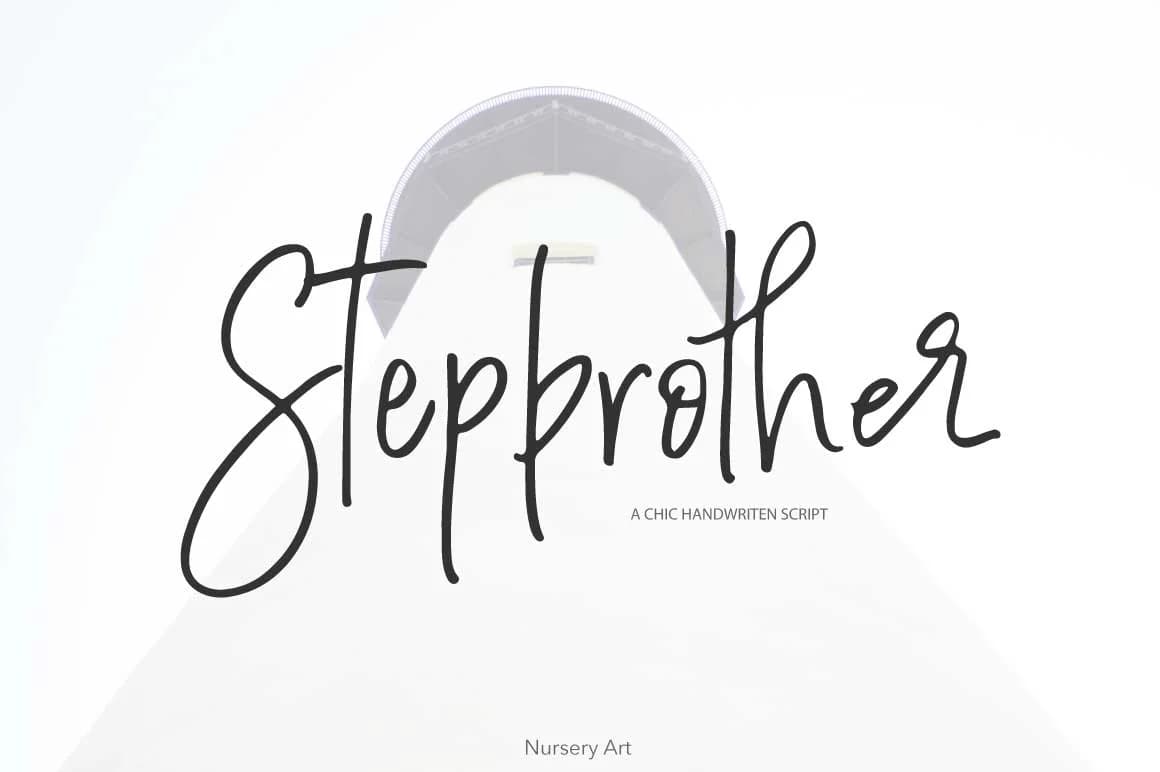
Stepbrother by Studio_Art is a refined handwritten script that merges contemporary design sensibilities with authentically handcrafted character. Each letterform demonstrates purposeful construction, transforming simple text into a distinctive visual element that communicates genuine personality and meticulous attention to detail. The typeface captures that coveted balance between polished sophistication and intimate human warmth, a quality that resonates with audiences seeking authenticity. This typeface excels in applications where personal connection enhances communication and builds genuine audience engagement. Wedding invitations and save-the-dates gain sophisticated warmth through its carefully rendered letterforms, cosmetics and skincare packaging becomes immediately memorable on retail shelves, boutique branding projects acquire a human-centered and approachable voice, and social media graphics command attention within algorithmic feeds. The script also performs beautifully for personalized greeting cards, event programs, menu design, and small-business collateral where authentic character resonates far more than corporate polish and mass-market aesthetics that flood the market. Stepbrother bridges digital and print applications with seamless versatility, working equally well for website headers, social media overlays, and traditional printed materials. This adaptability makes it invaluable across multiple design mediums, creative challenges, and branding contexts. Get Stepbrother on Creative Fabrica to bring handwritten sophistication and genuine character to your next creative project.
Stepbrother Font is a script font that shines as a display or heading face. Pair it with a clean sans-serif or serif font for body text β the contrast creates a clear hierarchy while the two styles stay balanced and easy to read.